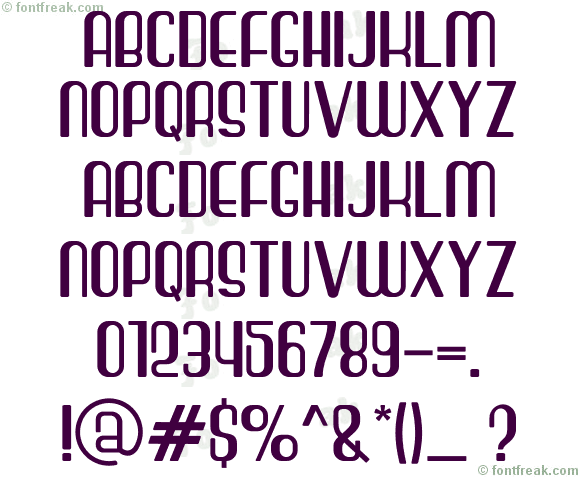
Craft Lovers
About Craft Lovers
Craft Lovers by Burhan Afif is a unique display font that captures the essence of creativity and artistic expression. Designed in 2020, this freeware font features a modern, clean aesthetic that makes it an excellent choice for various design projects. The font showcases a bold stroke weight with minimal contrast, creating a strong visual presence that is both eye-catching and versatile. The spacing is well-balanced, allowing for legibility while maintaining a contemporary feel. Its decorative elements are subtle yet effective, making it ideal for a wide range of applications.
The Craft Lovers font is particularly well-suited for wedding invitations, where its stylish flair can enhance the romantic ambiance. It's also perfect for crafting-related businesses, such as DIY blogs or artisanal product labels, adding a personal touch that resonates with the target audience. Additionally, this font can be effectively utilized in movie posters, giving a modern twist to promotional material, as well as restaurant menus, where its distinct style can make dishes stand out.
Targeting graphic designers, small business owners, and content creators, Craft Lovers provides an accessible yet stylish option for anyone looking to add a contemporary flair to their projects. Its balance of boldness and elegance makes it an attractive choice for those wanting to convey a sense of creativity and passion.
What sets Craft Lovers apart is its ability to blend modern design with a personal touch, making it not just a font but a statement. With the Craft Lovers font free download, you can bring a fresh perspective to your creative projects while enjoying the freedom of a unique typeface that embodies the spirit of artistry.